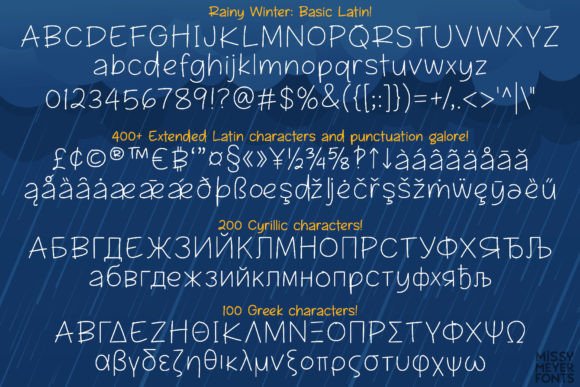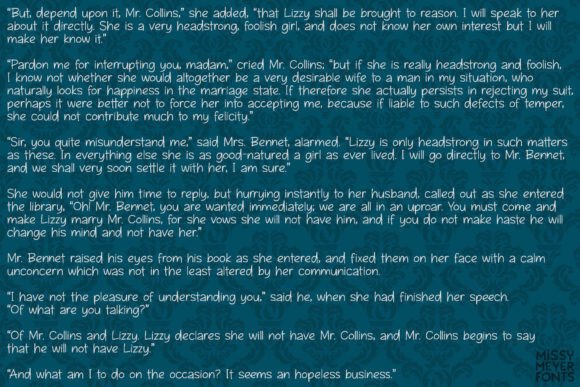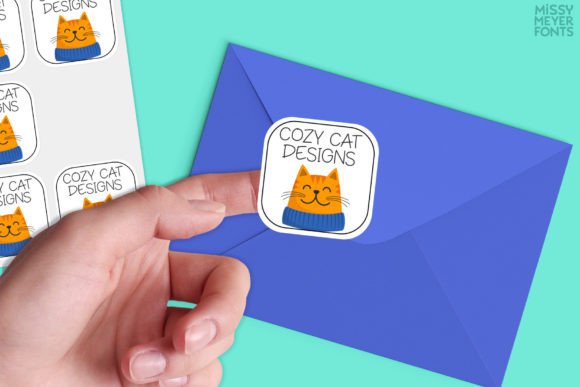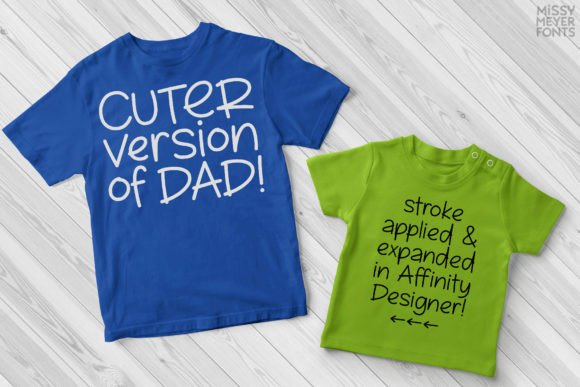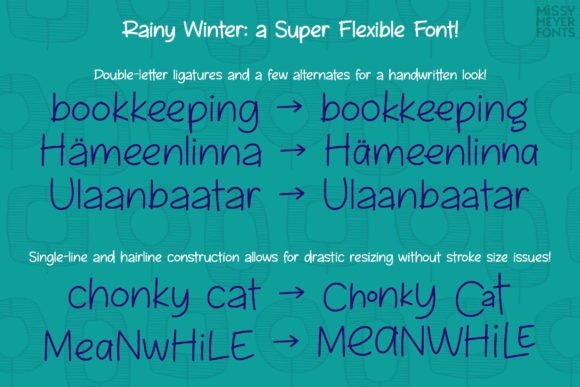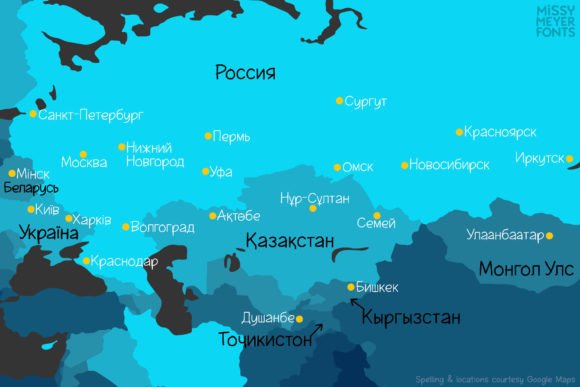
Rainy Winter (single Line) Font
After three and a half years of refining my craft, I’m excited to present Rainy Winter—a single-line font created entirely from scratch. Unlike traditional fonts, Rainy Winter is not based on an existing solid font but offers a unique and flexible design suitable for various creative projects. The charm of Rainy Winter lies in its fun and cute handwritten style, making it a versatile choice for a plethora of applications.
This font is an extensive collection, boasting over 900 glyphs that include the basics (A-Z, a-z, numbers, punctuation), along with additional features like 18 fractions, 350 extended Latin characters for comprehensive language support, 100 uppercase and lowercase Greek characters, 200 uppercase and lowercase Cyrillic characters, 40 double-letter ligatures for an authentic handwritten look, and alternates for ‘a’ and ‘g’ to allow for both single- and double-storey options.
For users seeking a true single-line experience, Rainy Winter One is the choice. Crafted from a single stroke from start to finish, it’s compatible with some CNC/specialty programs like Rhinoceros. While most common design programs connect the start and end points of these strokes, proficient users of vector design programs (Illustrator, Inkscape, Affinity Designer, etc.) can leverage this version and remove the connection.
Rainy Winter Two, on the other hand, is a hairline font, where strokes are so close together that they are virtually invisible. Tailored for crafting and design programs, it requires no tweaking or modifications—just type and go. Whether you’re using Silhouette Studio, Cricut Design Space, Adobe Illustrator, CorelDRAW, Inkscape, or Affinity Designer, Rainy Winter Two is ready for seamless integration.
It’s important to note that single-line and hairline fonts like Rainy Winter aren’t conventional fonts for word processing, printing, or cutting. They are crafted for specific applications such as sketch pens, foil quills, engraving tools, infusible ink pens, Glowforge scoring, or any stylus/nib that draws letters with a single line. Rainy Winter caters to both single-line and hairline versions, ensuring compatibility with various software programs. Please be aware that due to known issues with Brother Canvas Workspace, the functionality of any single-line fonts cannot be guaranteed in that program. Elevate your creative projects with Rainy Winter—a font designed to add a touch of whimsy and uniqueness to your single-line endeavors.